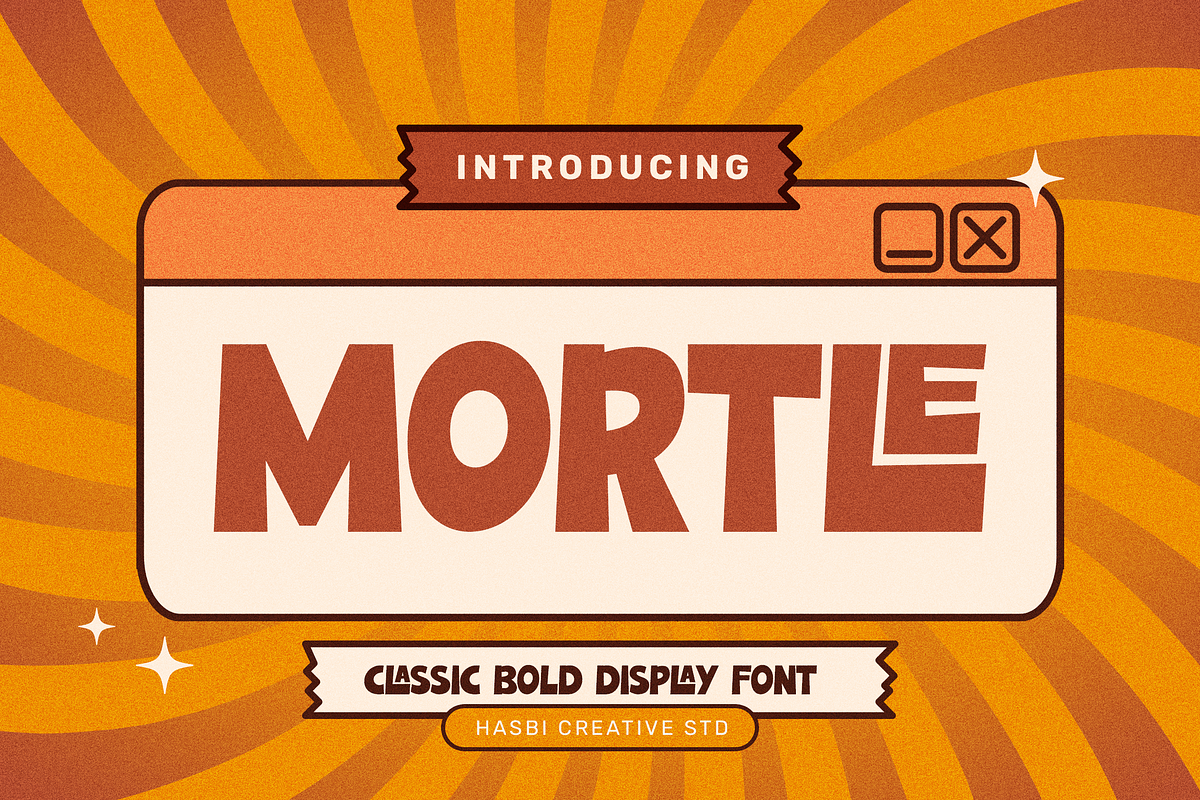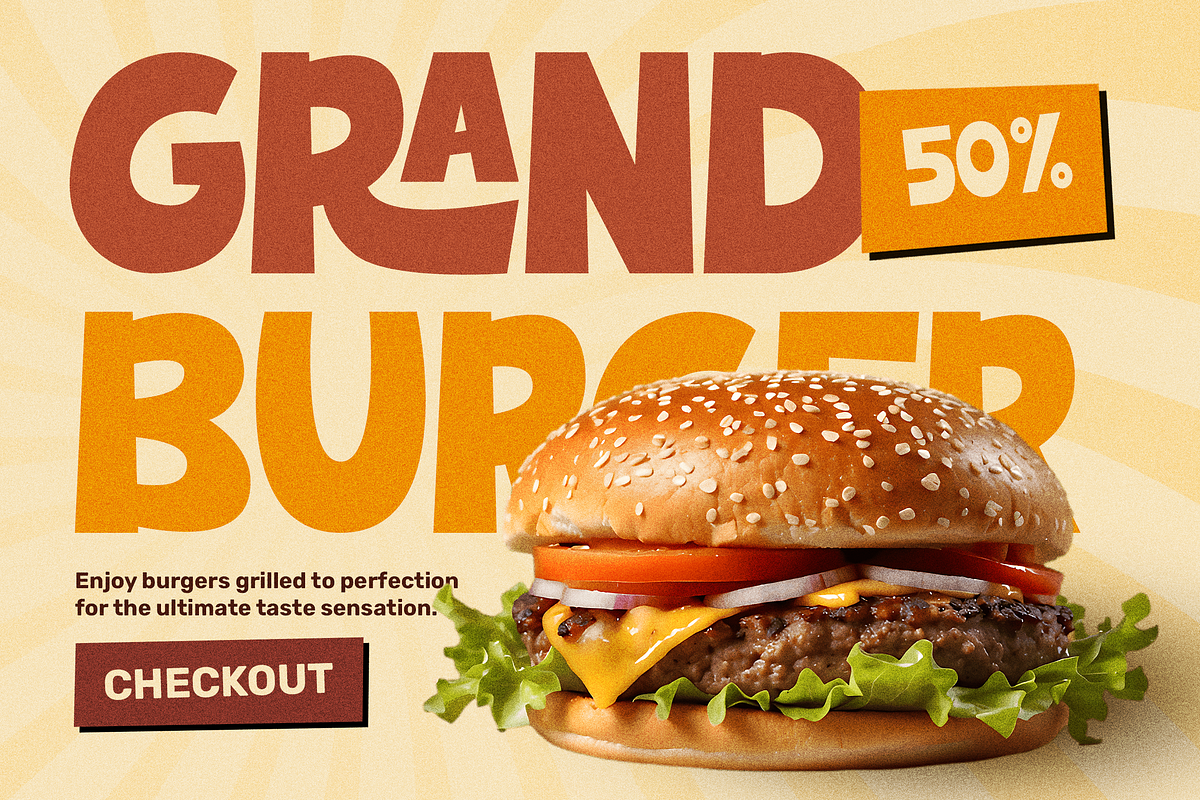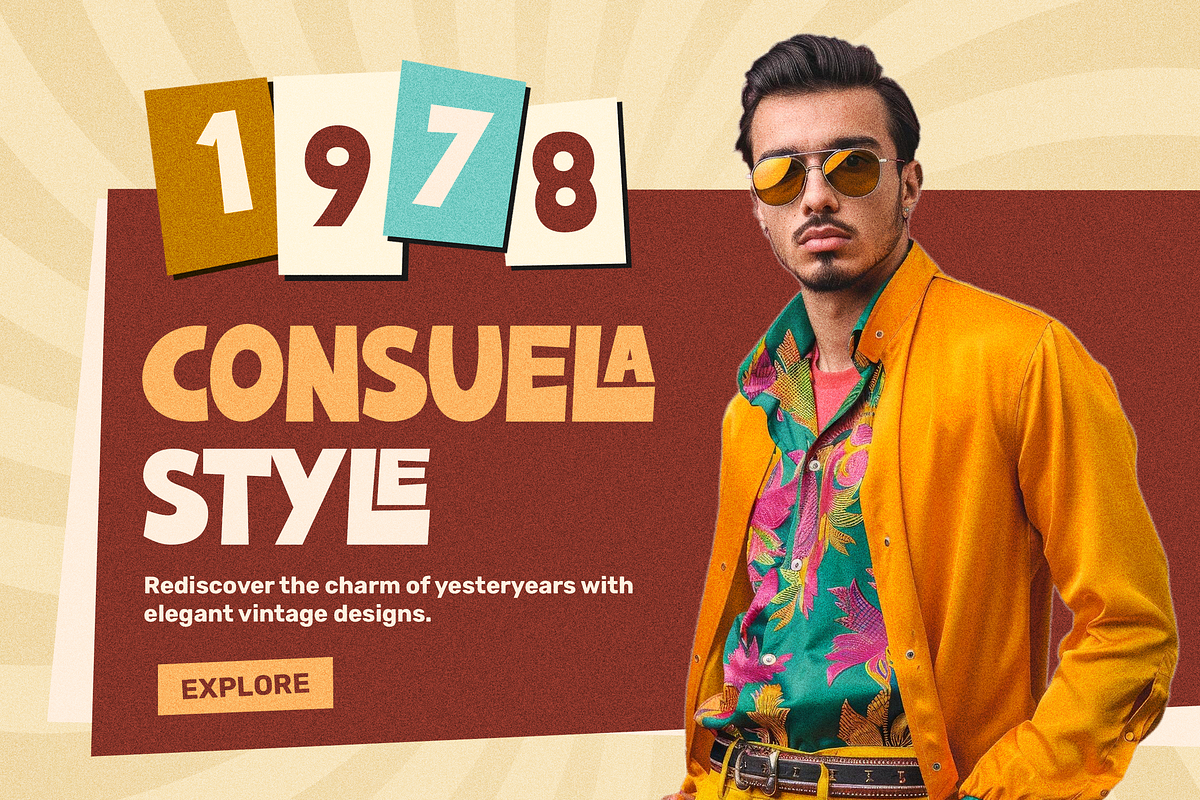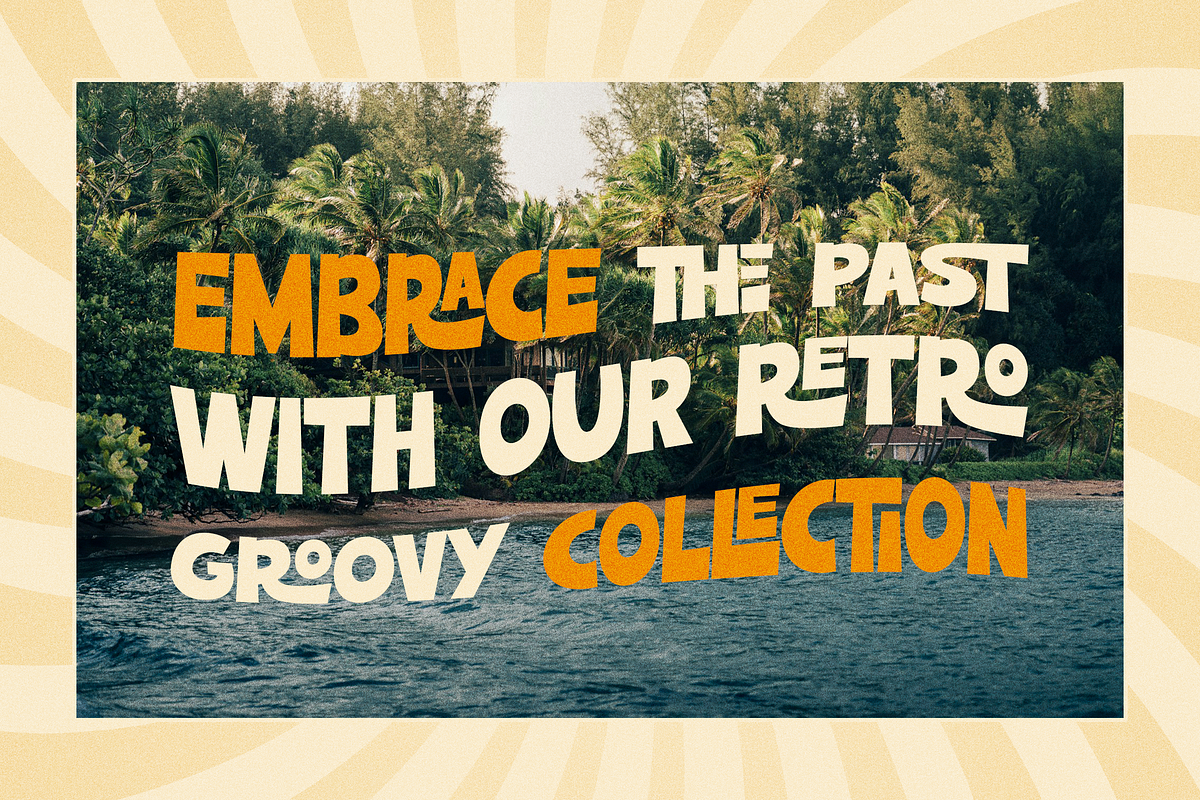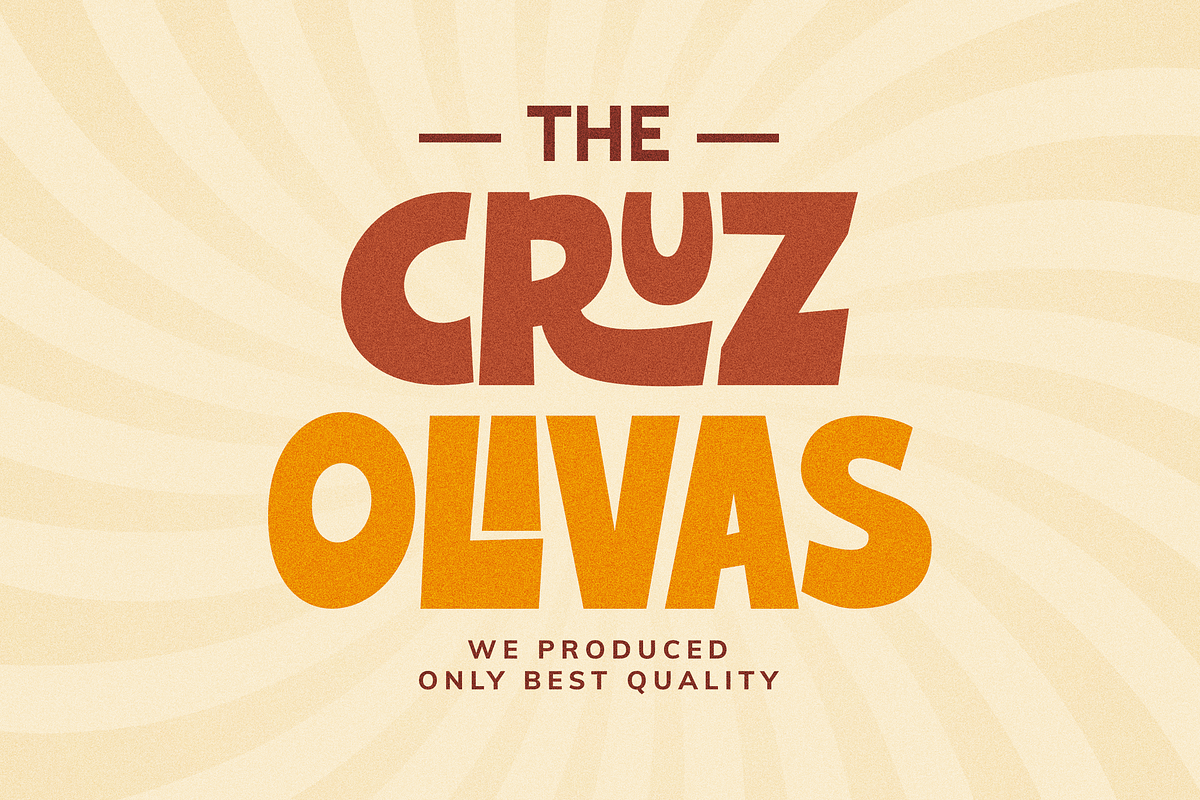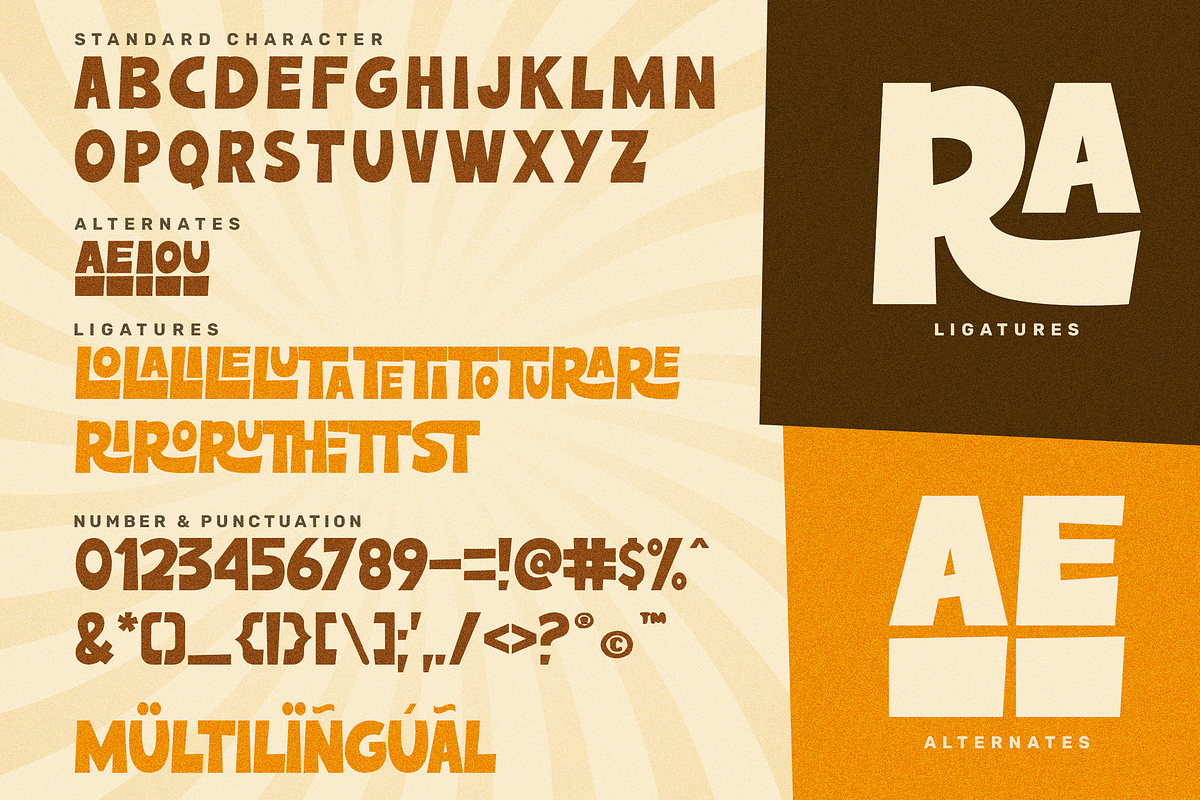
Mortle - Playful Display
Mortle is a playful display font that bursts with joy and whimsy. Its quirky, bouncy letters are perfect for adding a touch of fun to any design. Whether you're creating children's books, playful packaging, or eye-catching headlines, Mortle will make your words dance off the page.
This font is:
- Unique and eye-catching
- Playful and fun
- Versatile
- Easy to use
With its endless possibilities, Mortle is the perfect font for adding a touch of fun to any design.